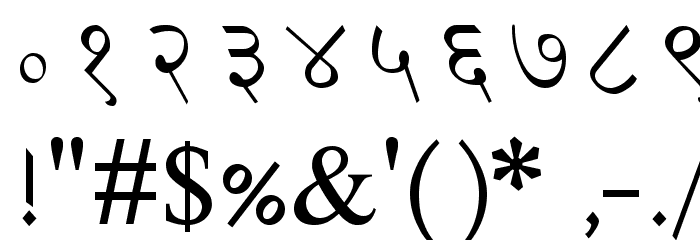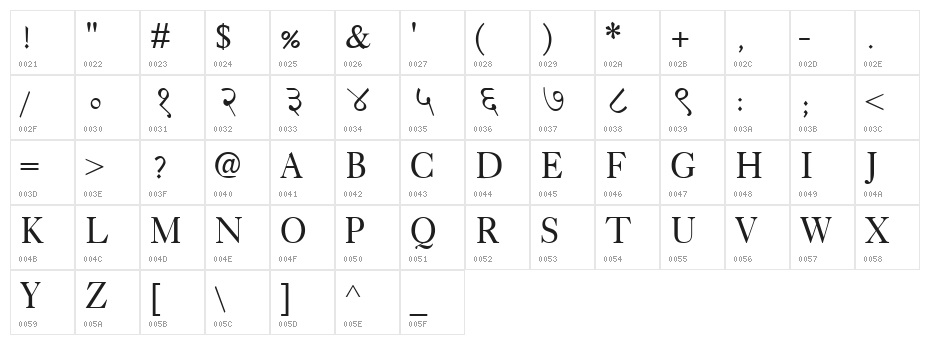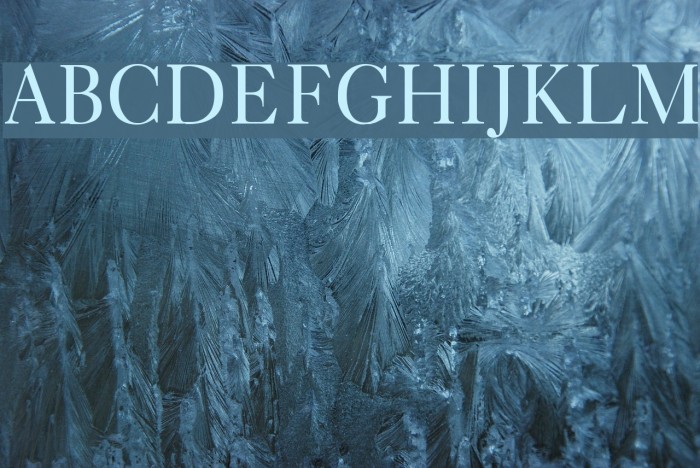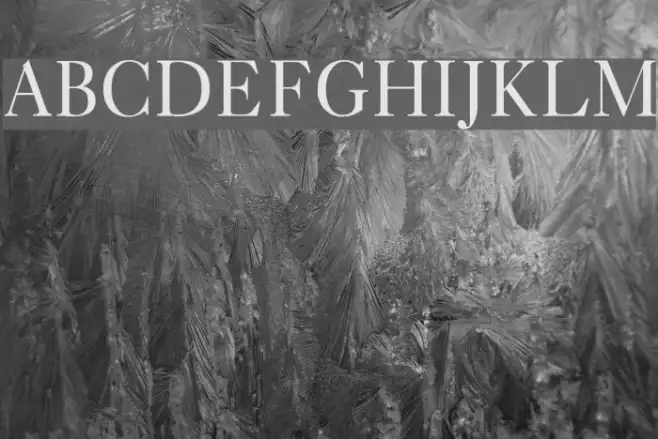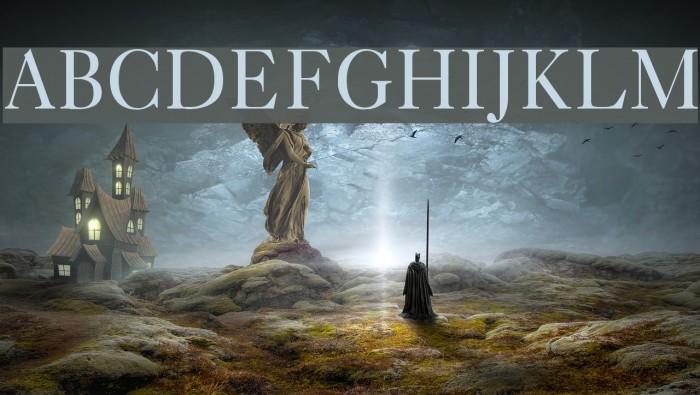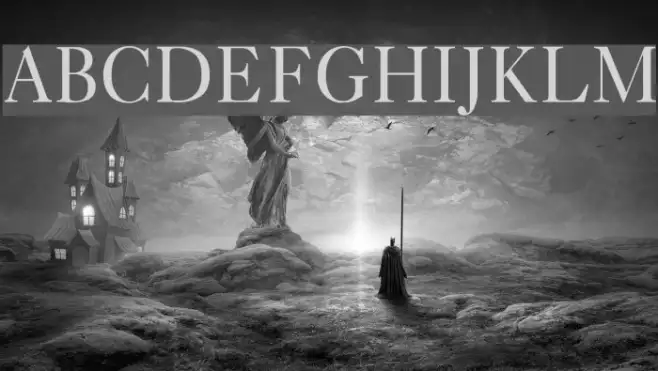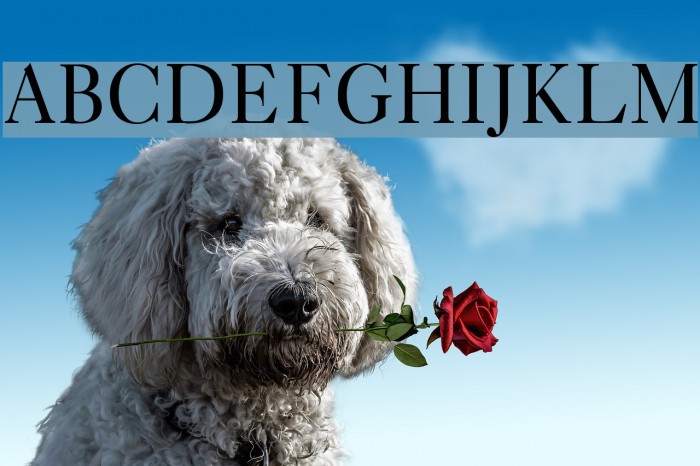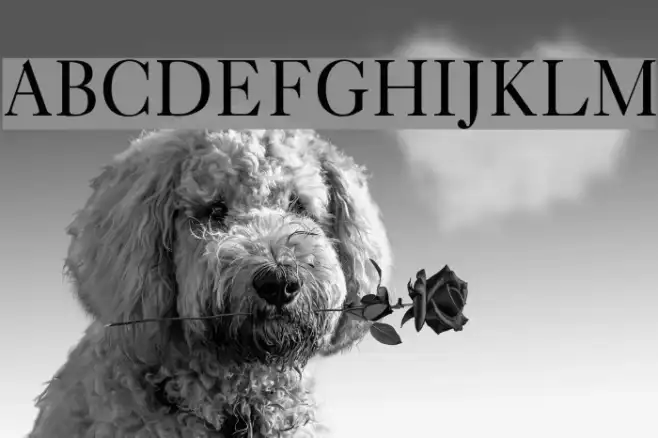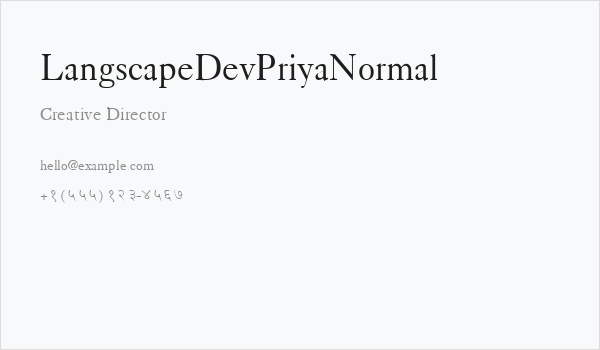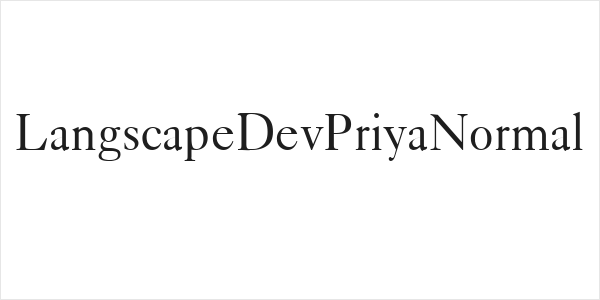
LangscapeDevPriyaNormal Font
LangscapeDevPriyaNormal Description
This font features a classic serif style with elegant, well-defined strokes. The uppercase letters are tall and stately, while the lowercase letters maintain a consistent and harmonious appearance. The numerals are clear and easy to read, complementing the overall design. Special characters are crafted with attention to detail, adding a touch of sophistication. The font's design is versatile, suitable for both formal and creative applications. Its balanced proportions and refined serifs make it ideal for conveying a sense of tradition and reliability.
| Proposed Projects | Ideal for book covers, formal invitations, branding materials, and editorial design. |